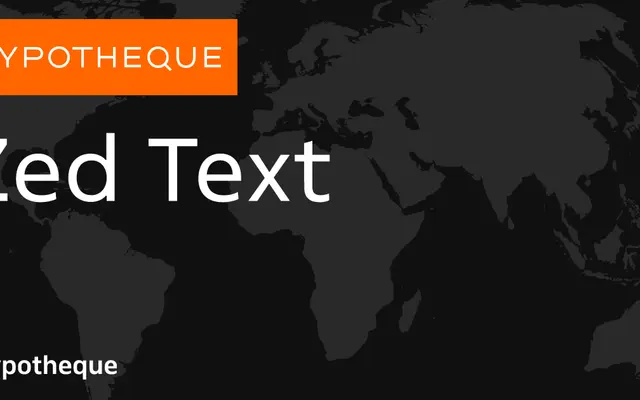
Zed Text
The text-optimised subfamily of Typotheque's vast Zed system, available across four widths and nine weights with matching slanted cuts.
Zed Text sits within a remarkably large type system that spans Display, Round and Text optical variants, each offered in up to nine widths from Extra-Compressed to Extra-Wide. The Text subfamily covers four widths — standard through Extra-Wide — and runs from Hairline to Black with slanted companions throughout. A variable font is also available, making Zed Text a serious option for complex editorial and UI environments that demand tightly controlled typographic hierarchies.
Zed Text is a sans-serif with geometric construction, forming part of a large multi-width system; the Text subfamily is optimised for running text at smaller sizes, distinct from the Display and Round variants.